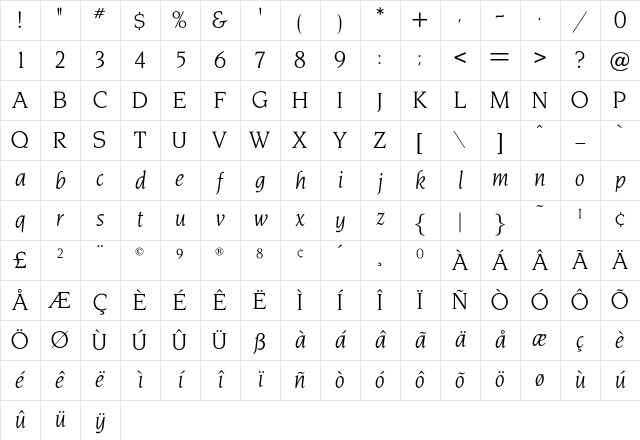
OPTINonoy Italic
Foundry: Copr. Castcraft Software, Inc
Design Context for OPTINonoy
OPTINonoy is a composed and adaptable typeface that performs quietly and consistently across a wide range of design contexts. The slanted form adds forward momentum and visual energy.
Pro Tip: Use OPTINonoy for emphasis, pull quotes, and subheadings where its slanted energy can add rhythm to the layout.